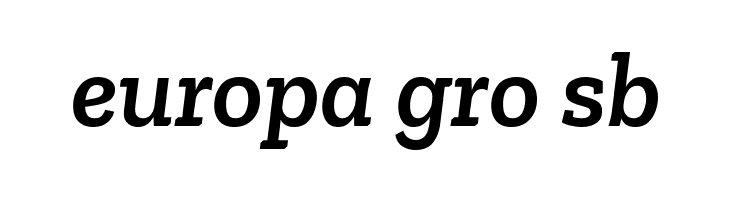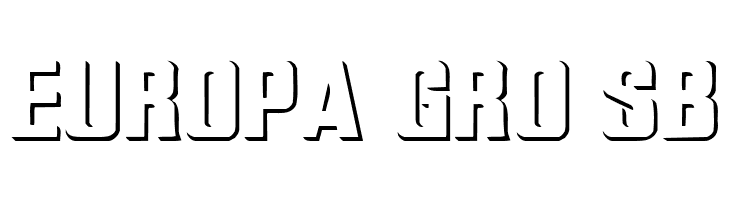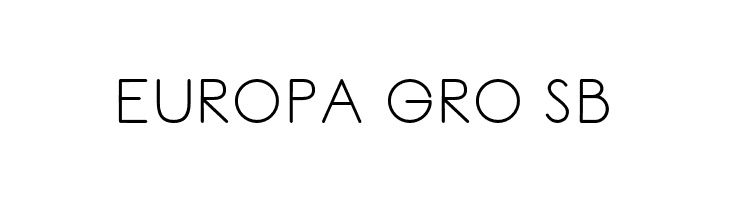
A bold, playful handwritten font with a casual, urban style.
A semi-bold, italic slab serif font with a modern yet classic appeal.
A bold, italic serif font with strong, dynamic letterforms.
A bold, three-dimensional font with a shadow effect and italic style, perfect for attention-grabbing designs.
An elegant serif font with a medium weight and italic style.
A sleek, modern semi-bold italic font with a dynamic and stylish appearance.
A bold, three-dimensional font with a shadow effect, ideal for impactful headlines.
A modern, geometric font with clean lines and uniform stroke width.
A classic serif typeface with semi-bold weight and elegant serifs, perfect for refined readability.
A bold, italic font with a dynamic and modern style.